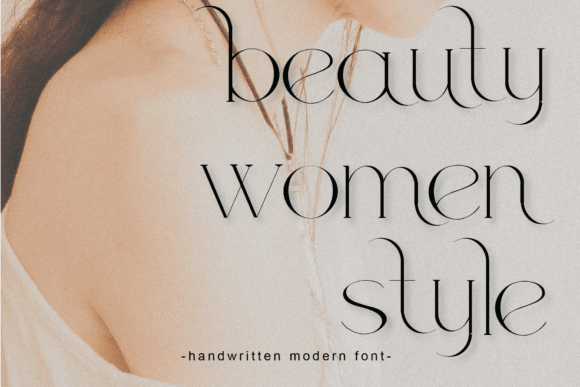
Introduction to Hostania Font
Have you ever found yourself stuck in a creative rut, searching for that perfect font to bring your design to life? I know I have. As a designer, I’ve spent countless hours browsing through font libraries, trying to find that elusive combination of elegance and uniqueness. That’s when I stumbled upon the Hostania Font – a high-quality, timeless serif font that has become my go-to choice for creating eye-catching logos, branding, and quotes.
The Hostania Font is more than just a design resource; it’s a game-changer. Its transparent background and beautiful, handcrafted details make it a versatile choice for any creative project. And the best part? It’s available for free download, making it a valuable asset for designers of all levels.
Whether you’re working on a personal project or a high-profile client, the Hostania Font is sure to elevate your design and leave a lasting impression.
Key Features of Hostania Font
- High-quality design: Hostania Font is designed to provide a professional and elegant look for any creative project.
- Large character set: Hostania Font includes a large character set, covering a wide range of languages and characters, making it a versatile design resource.
- Perfect for creative projects: Hostania Font is ideal for use in creative projects, such as graphic design, digital art, and typography, due to its unique and elegant design.
Honest Review: Hostania Font
I recently had the chance to try out the Hostania Font, and I must say it’s a high-quality addition to any design resource collection. The font’s modern and elegant design makes it perfect for a wide range of creative projects, from branding to editorial work.
- ✨ Elegant and sophisticated design that adds a touch of sophistication to any project.
- ⚠️ Limited font weights and styles, which may not be suitable for projects requiring extensive font customization.
Overall, the Hostania Font is a solid choice for designers looking for a high-quality, versatile font. While it has its limitations, it’s a great addition to any design resource collection. I would recommend it for creative projects requiring a touch of elegance and sophistication.
The Hostania Font is a versatile design resource that can be used in a variety of creative projects, including logos, brochures, and social media graphics.